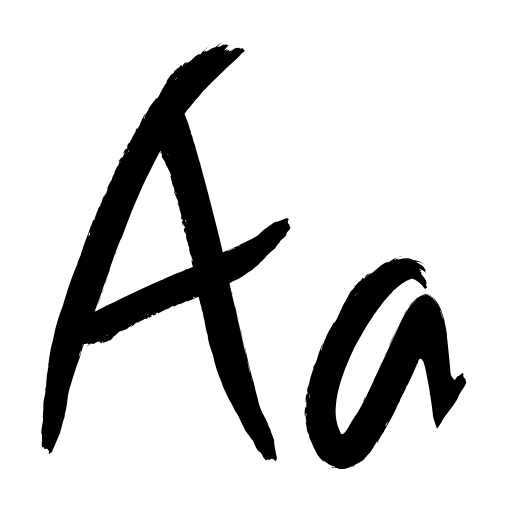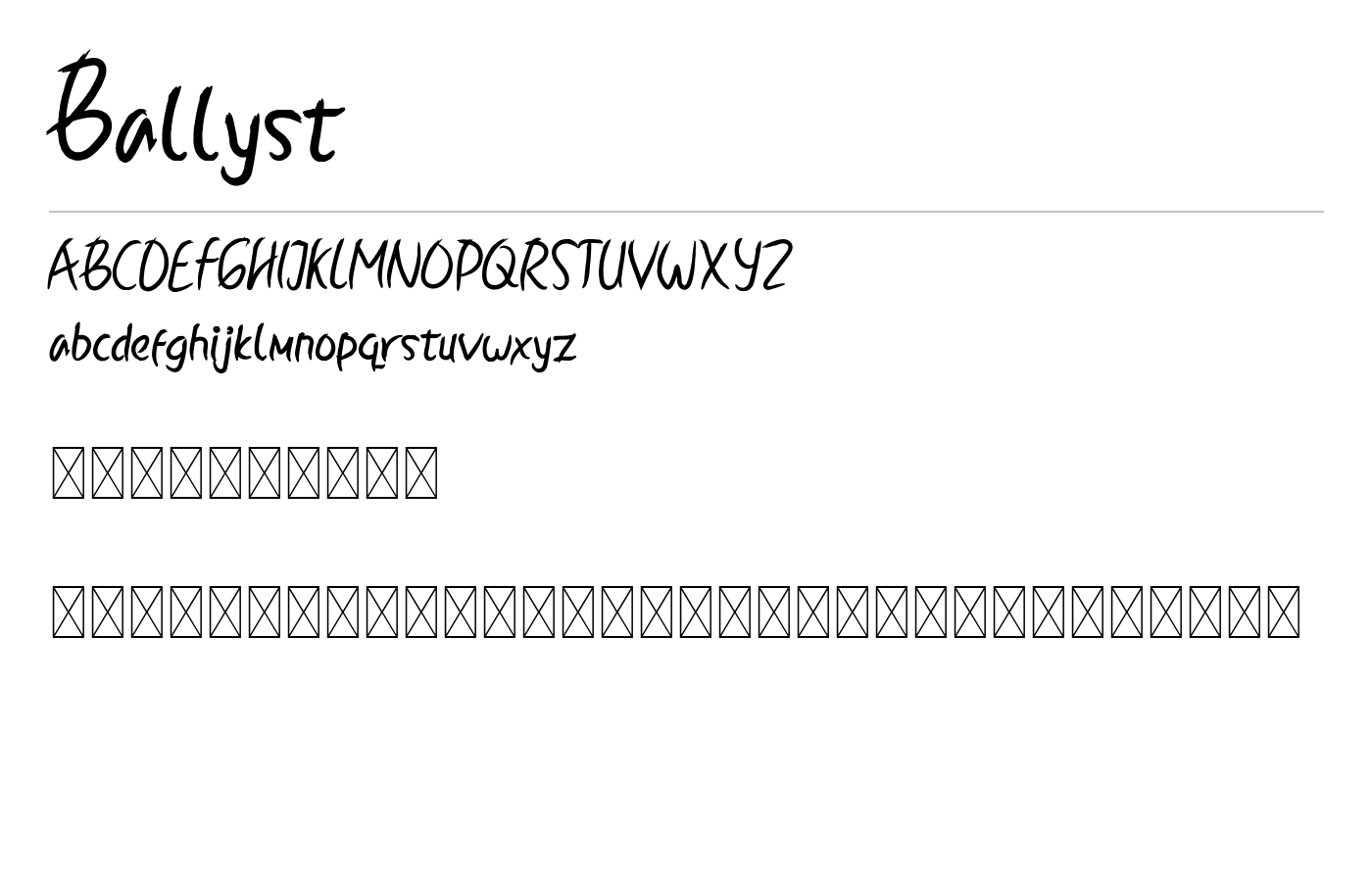
Ballyst is a casual, handwritten script font with a lively and organic feel. Its irregular strokes and playful letterforms give it a friendly, informal style that works well for creative projects, personal branding, and lifestyle designs where a warm, approachable look is desired. This font shines in headlines, invitations, and packaging that benefit from a hand-crafted, authentic touch.
Ballyst Font
About Ballyst Font
| Font family | Ballyst Font |